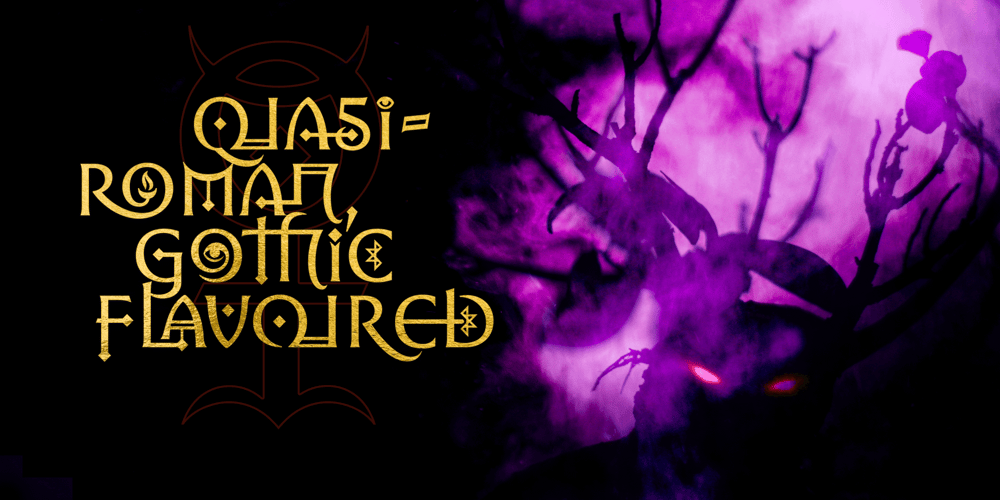
Rahere Esoteric Font Family was designed by Michael Gills and published by ULGA Type. Rahere Esoteric contains 1 styles and family package options. Rahere Esoteric is a gothic-flavoured, quasi-Roman display font with an eccentric persona and more quirks than a Tim Burton film. A member of the extended Rahere typeface family, it’s the enigmatic cousin of Rahere Roman Display & Rahere Sans. This is a niche display font that doesn’t try to please everyone. Rahere Esoteric revels in its mystical aura, using a bewildering array of ligatures to magically transmute itself as characters loop, curl, jerk and strut, randomly connecting and disconnecting into words like a retro-futuristic steam train clattering along a disused railway track, challenging and delighting the reader at the same time. To add more sparkle, there are alternatives, inferior and superior caps plus a [Wicca] basketful of symbols, ornaments, weird faces and even a snake-infused ampersand. Whilst Rahere Esoteric has been designed primarily as an all-caps font, the lowercase slots contain small caps with corresponding numerals. However, because this is an arcane, unpredictable font, order and regularity are frowned upon, which means there are no tabular numerals – so company reports or accounts are a solid no! Unless they’re for the Golden Circle of Alchemists PLC or Gothic Blackstar Corporation.It is ideal for all things pagan, esoteric, alchemy, other-worldly or magic-related projects and particularly useful for music genres across the Gothic / Darkwave / Ethereal spectrum.What about legibility? Hey, look into my eyes: Esoteric is all about the mystique. If a secondary font is needed for the important stuff, I recommend its cousin, Rahere Sans, which pairs beautifully with this display font and is perfect for long passages or small text.The initial idea for Rahere Esoteric came about during a visit to Whitby, a small coastal town in Yorkshire, UK and famous for its inclusion in Bram Stoker’s novel, Dracula. A Steampunk festival was in full swing and the narrow streets of the town centre were teeming with people adorned in a glorious fusion of clothing and accessories influenced by a love of 19th-century life, science fiction, horror, fashion and art. I was fascinated by the juxtapositions of colour, patterns, material and style – archaic mechanical Sci-fi, gothic, the American Wild West and romantic Victorian. But what intrigued me the most, somehow, all the disparate elements worked as a whole. Thus, like Frankenstein, this font jolted into existence.Supported languages include Western Europe, Vietnamese, Central/Eastern Europe, Baltic, Turkish and Romanian.